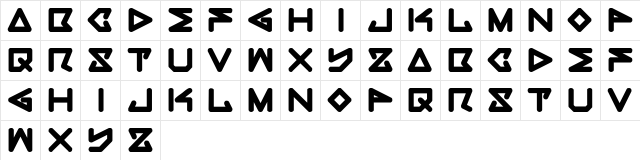
rec Bold Font Preview
rec Bold
Design Context for rec Typeface
rec offers clean, dependable letterforms without strong stylistic allegiance, making it a practical choice for designers who need flexibility. Its bold stroke weight gives it real presence on the page.